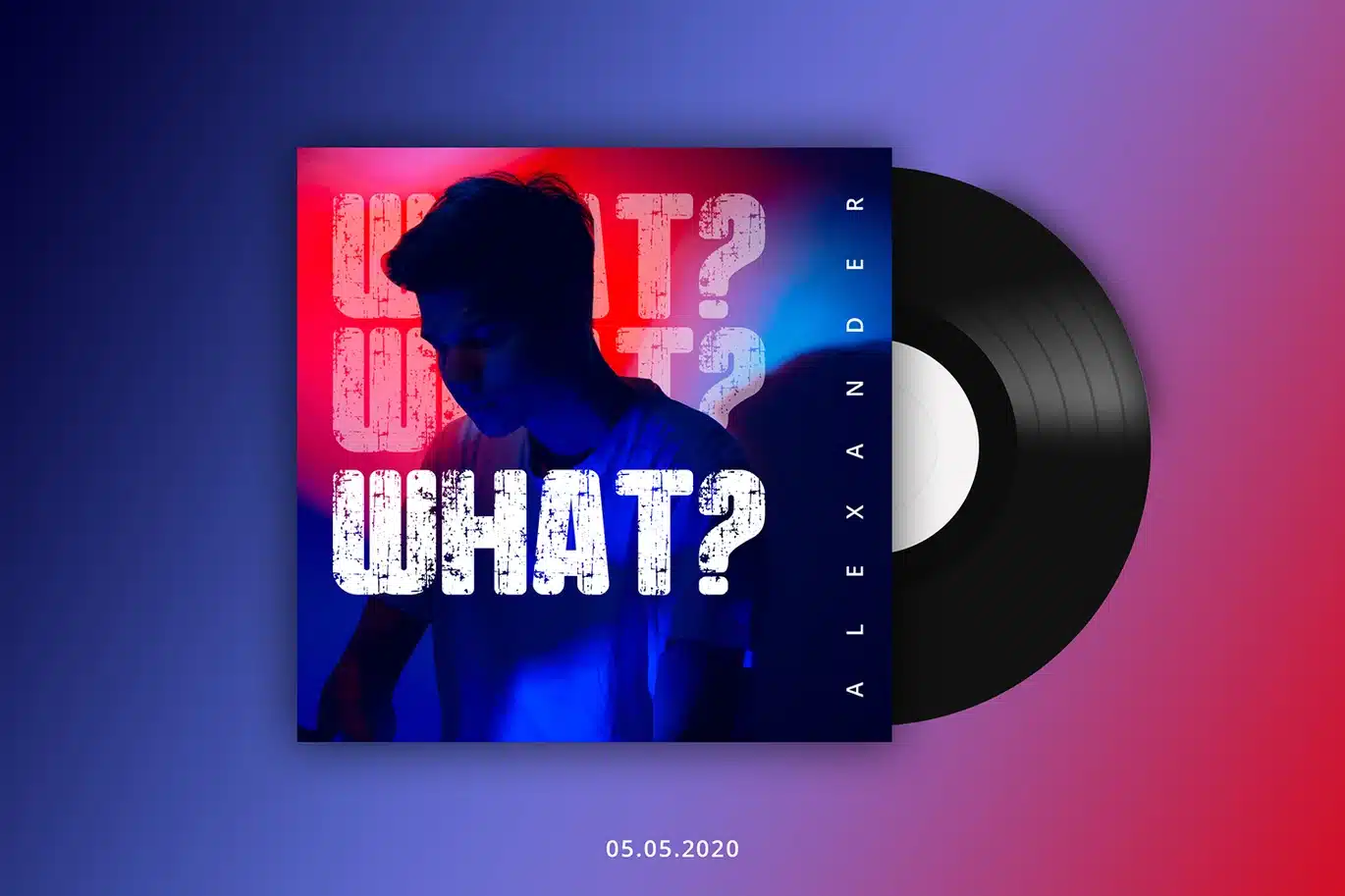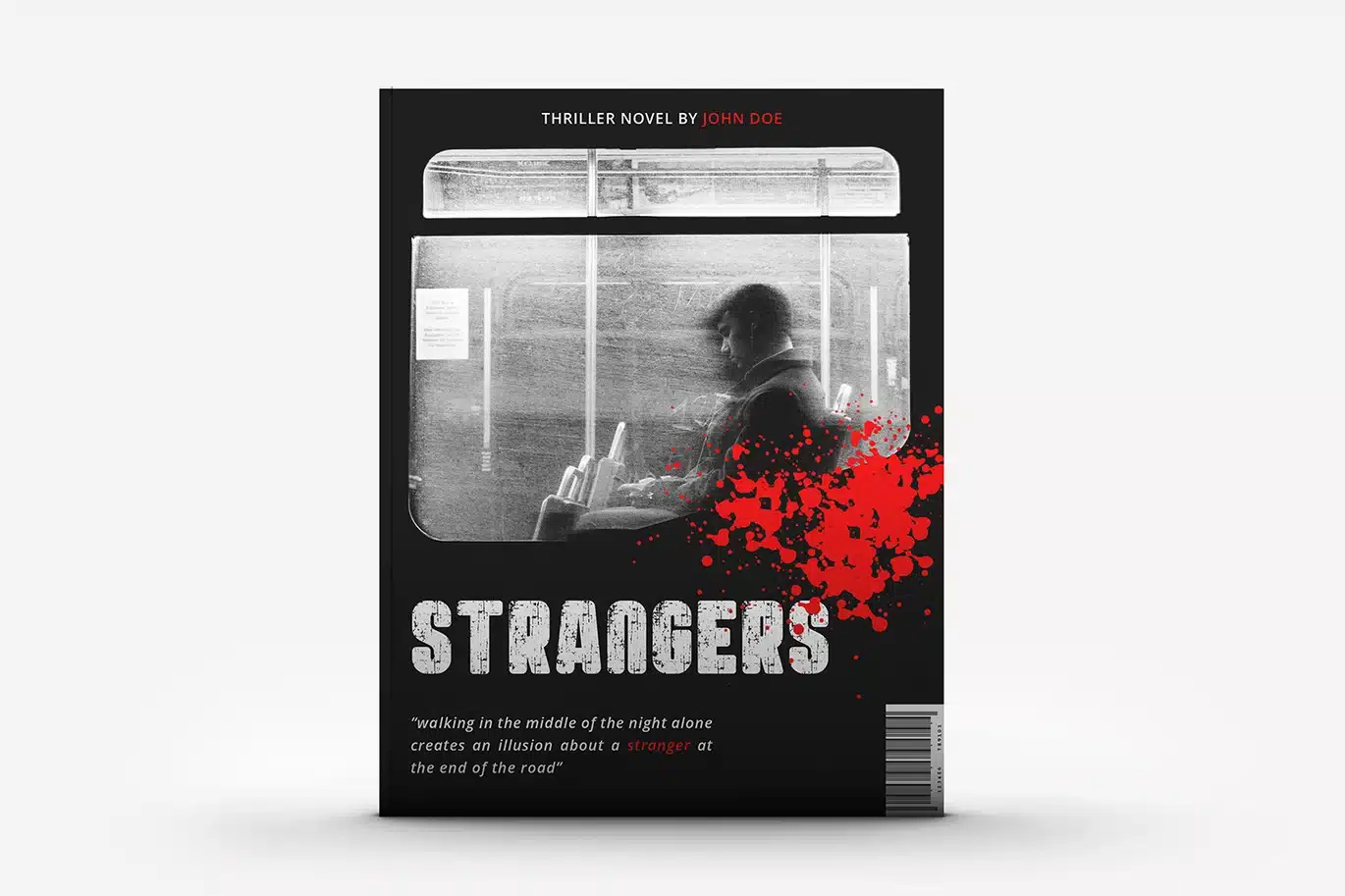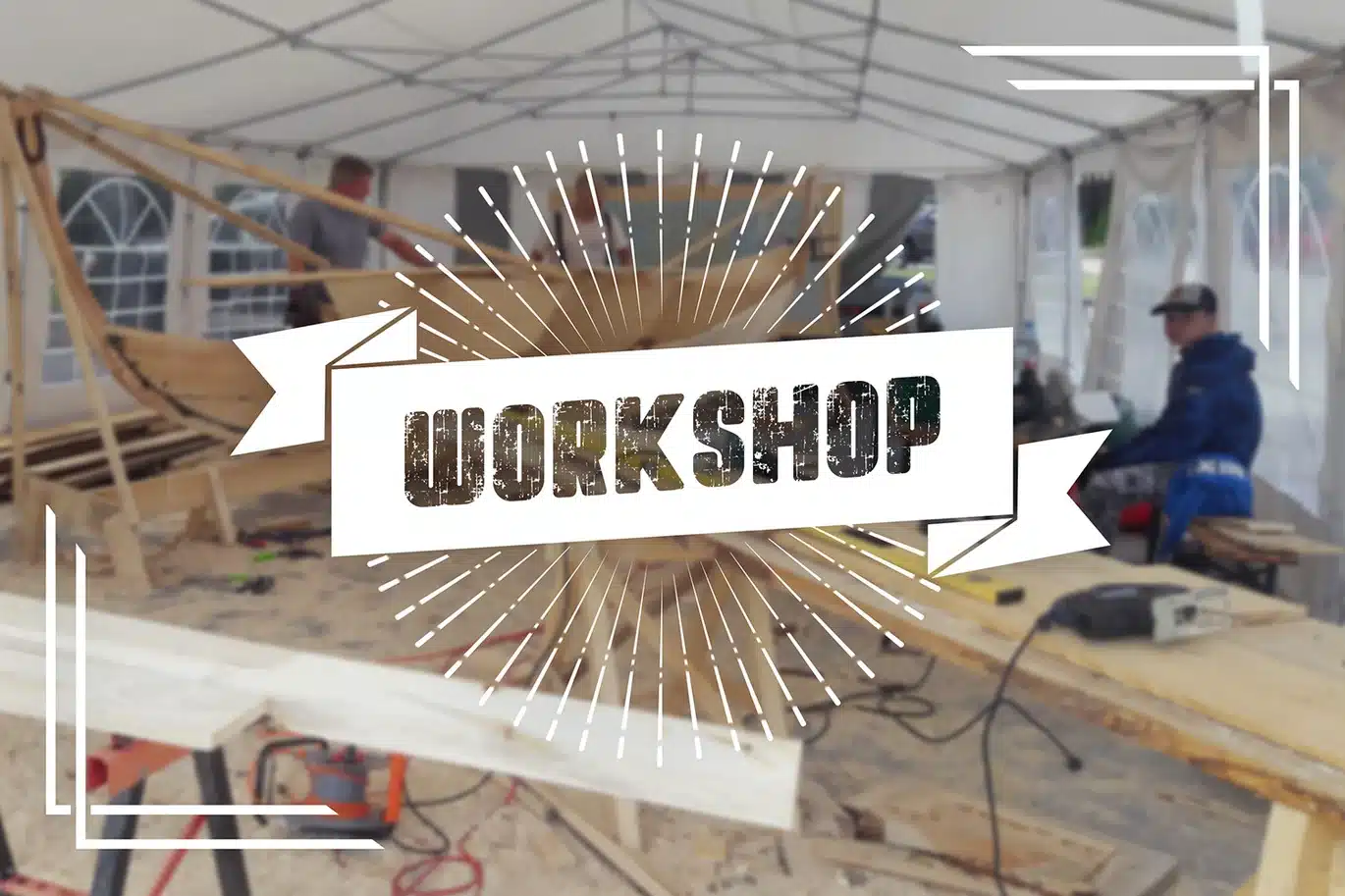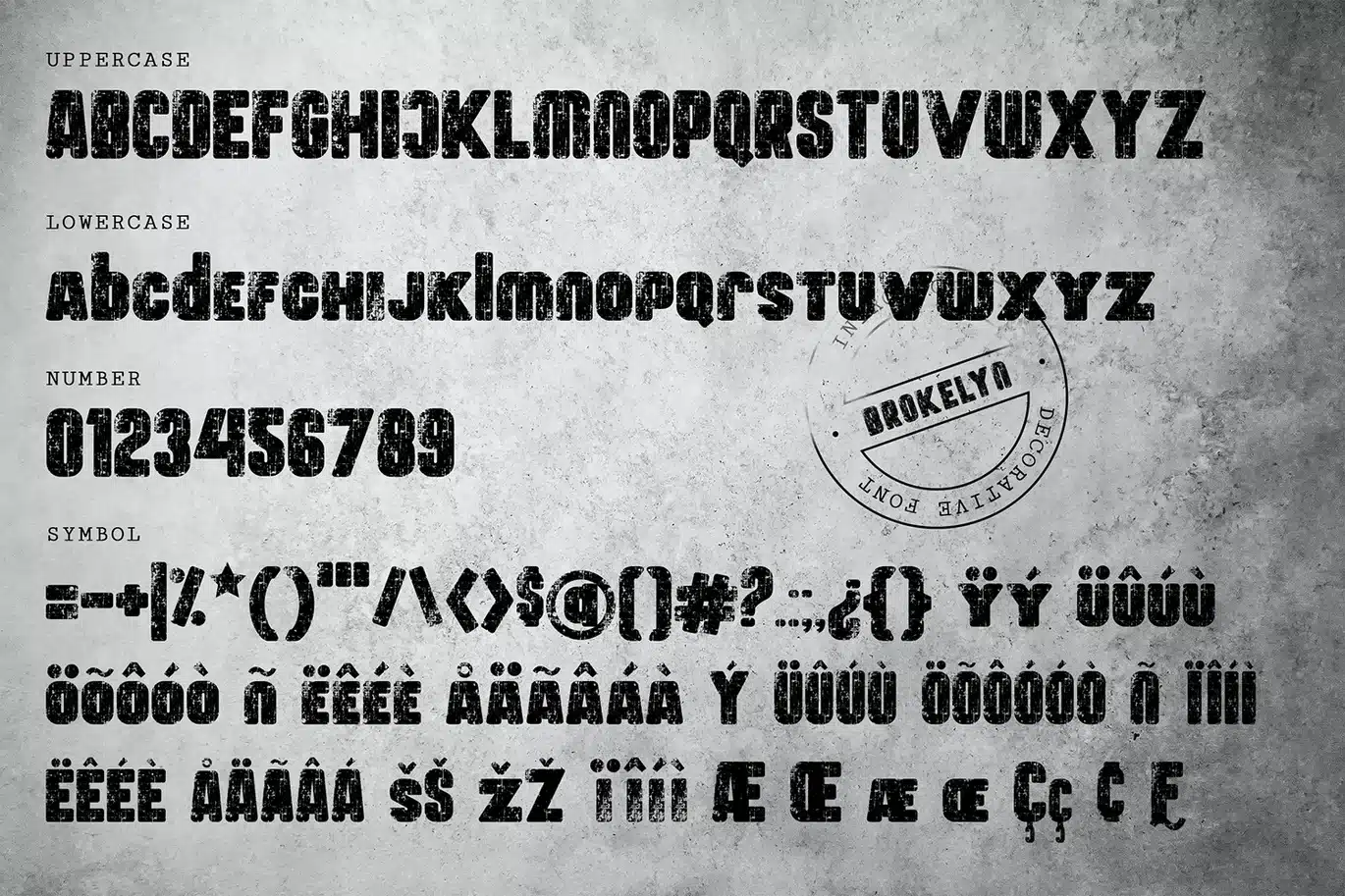
Brokelyn – Font
This font is cool for branding, Birthday invites, Tote Bag, Mugs, Business Cards, Quotes, Posters, and many more.
- Numerals & Punctuations